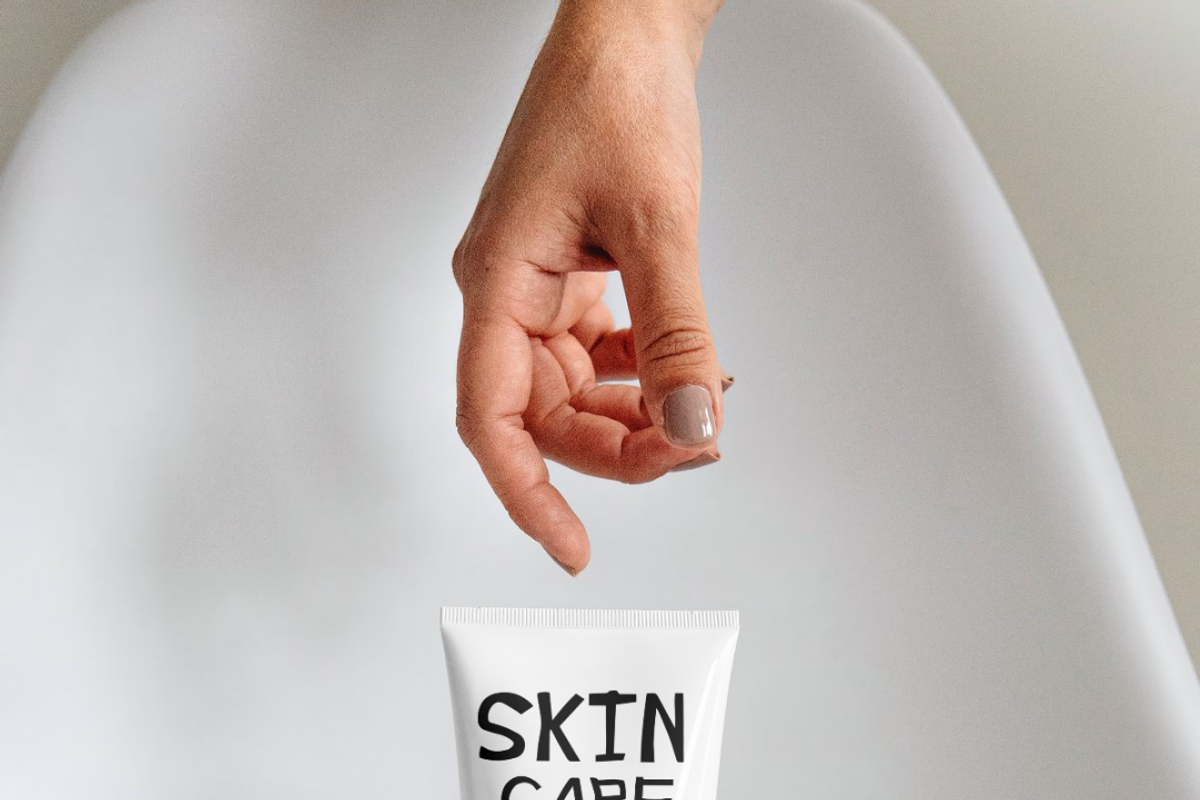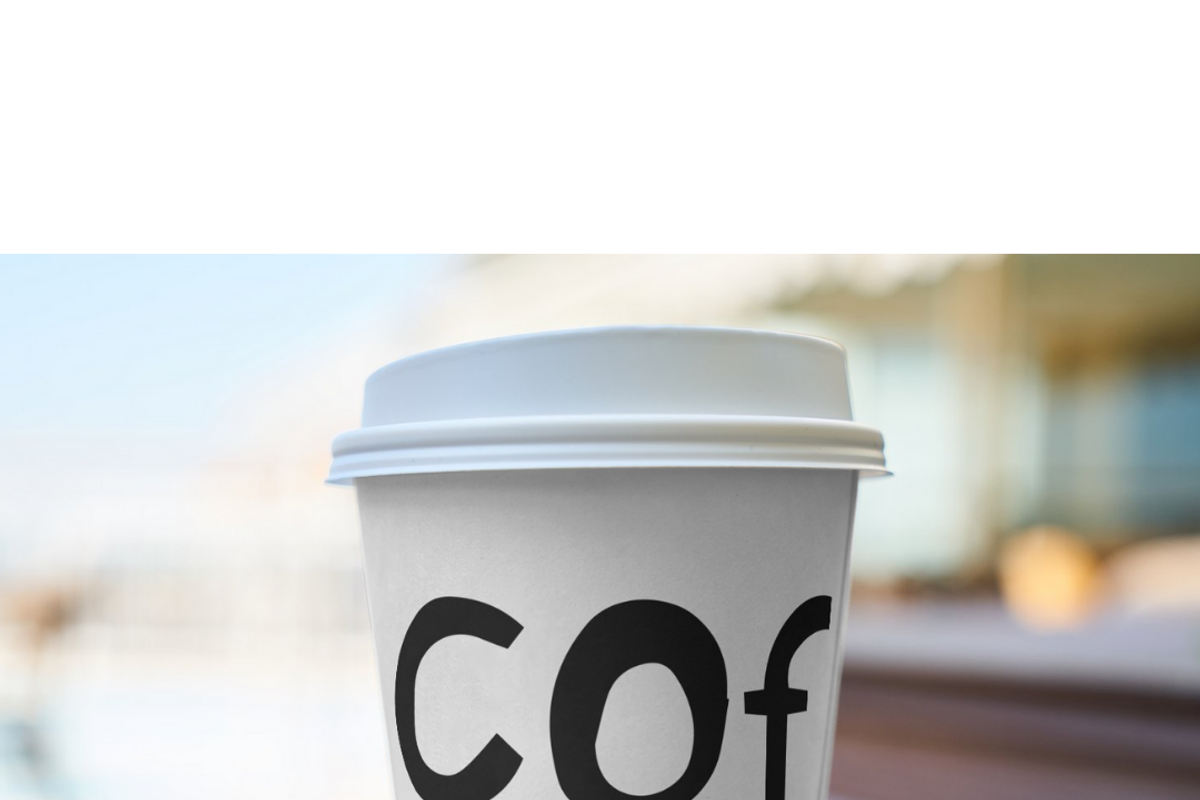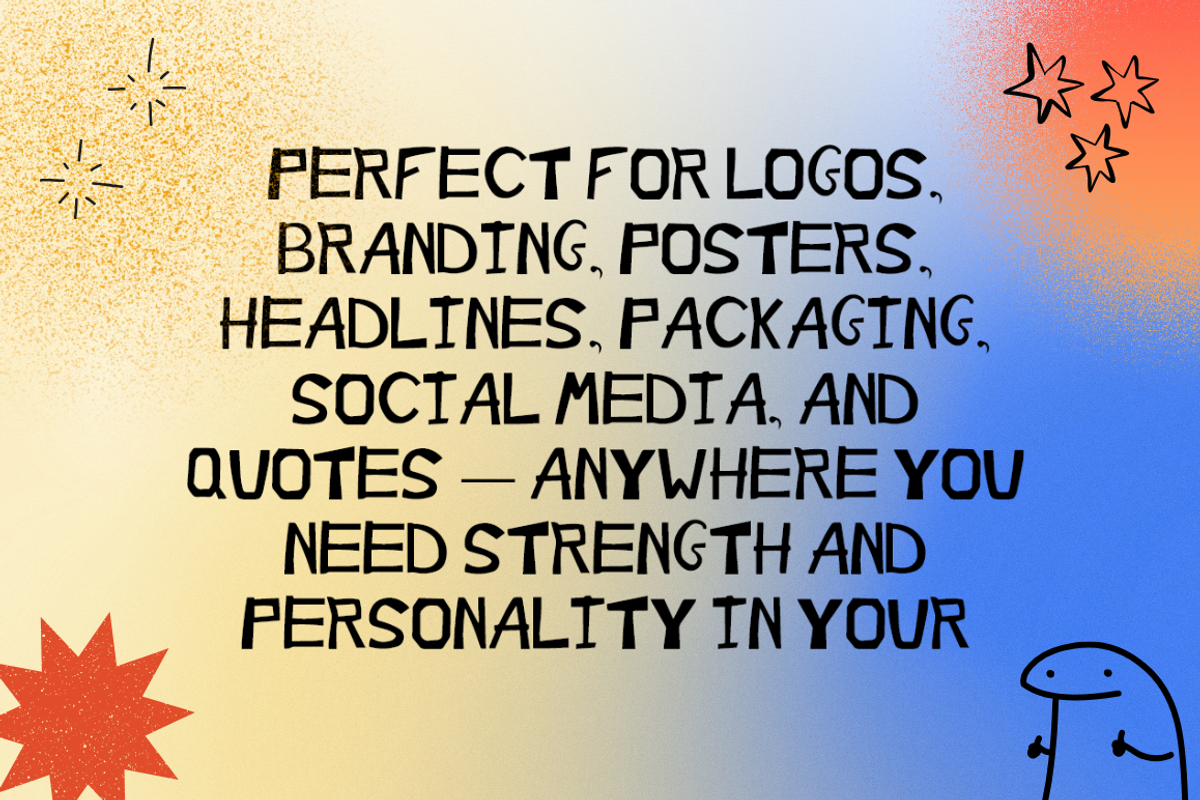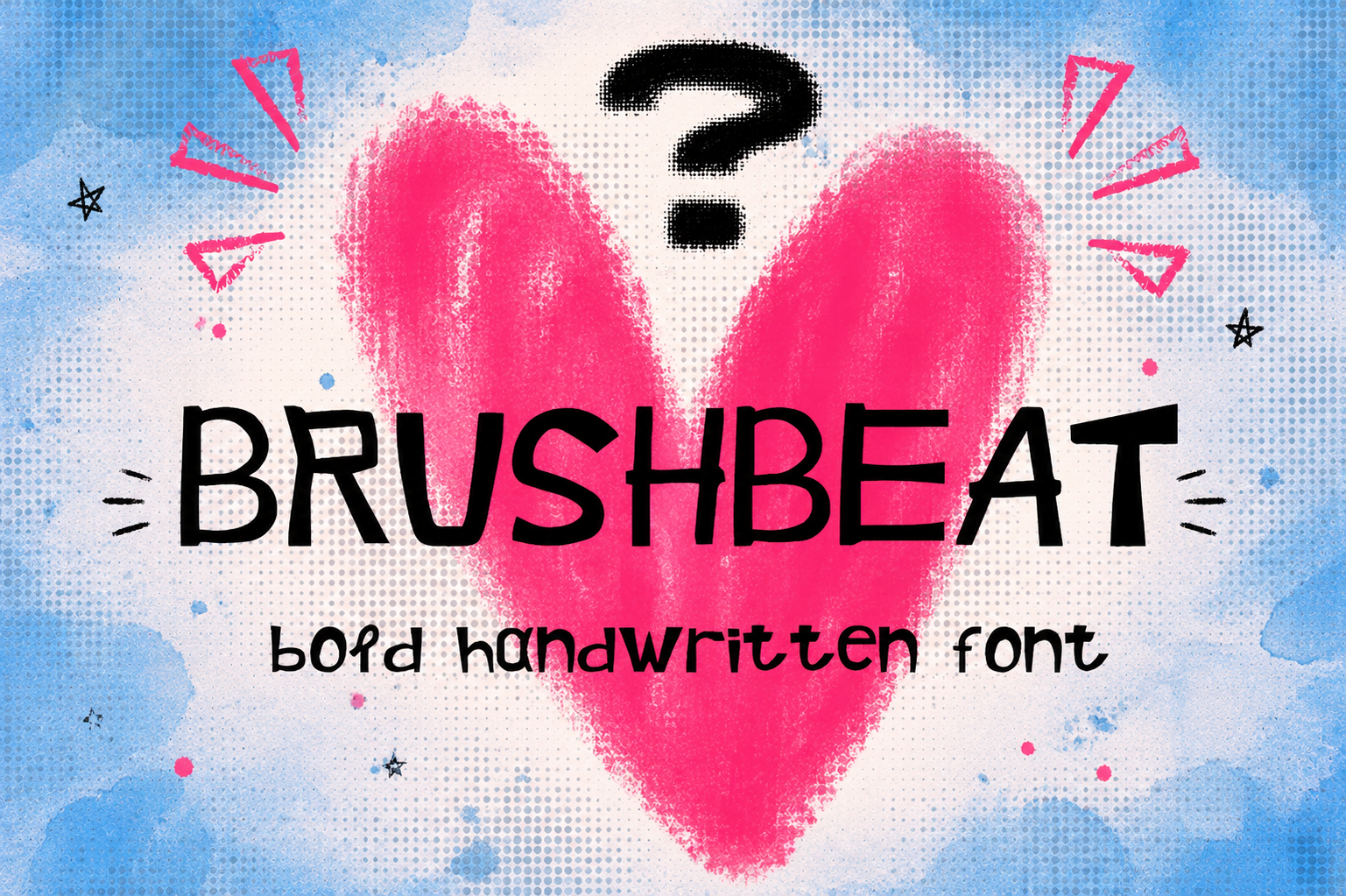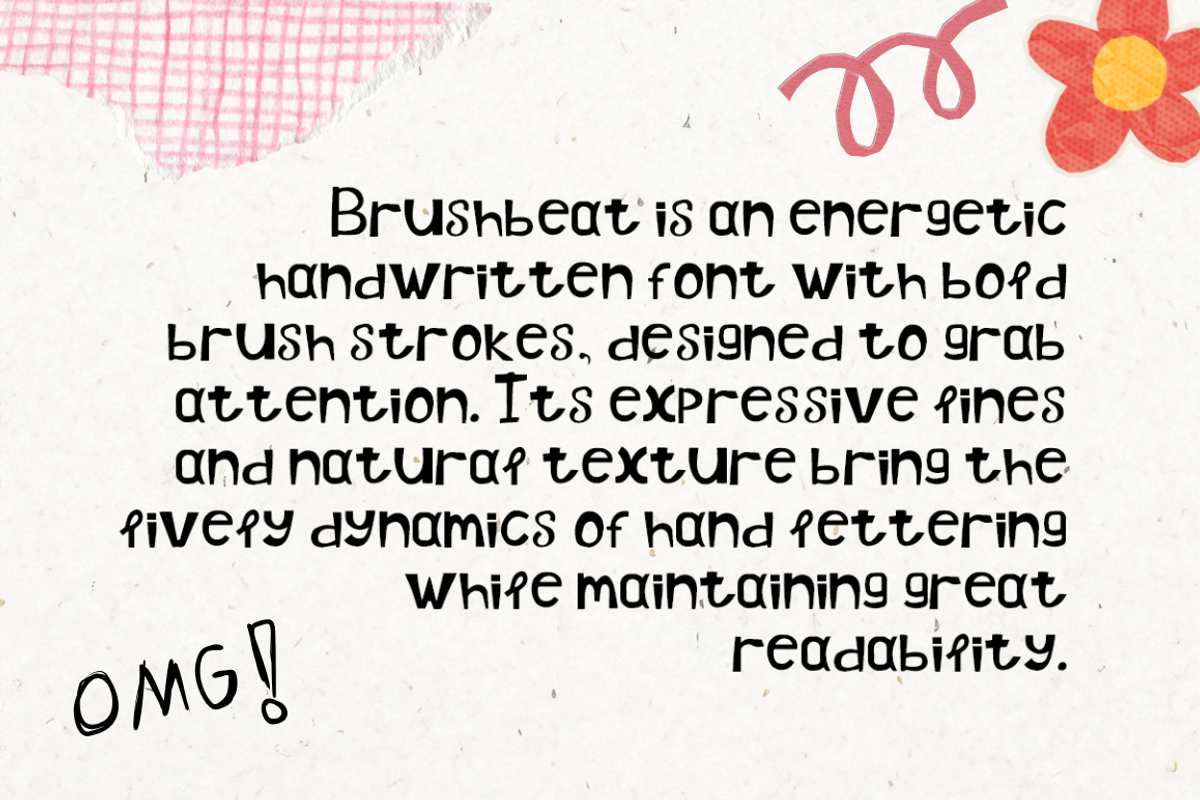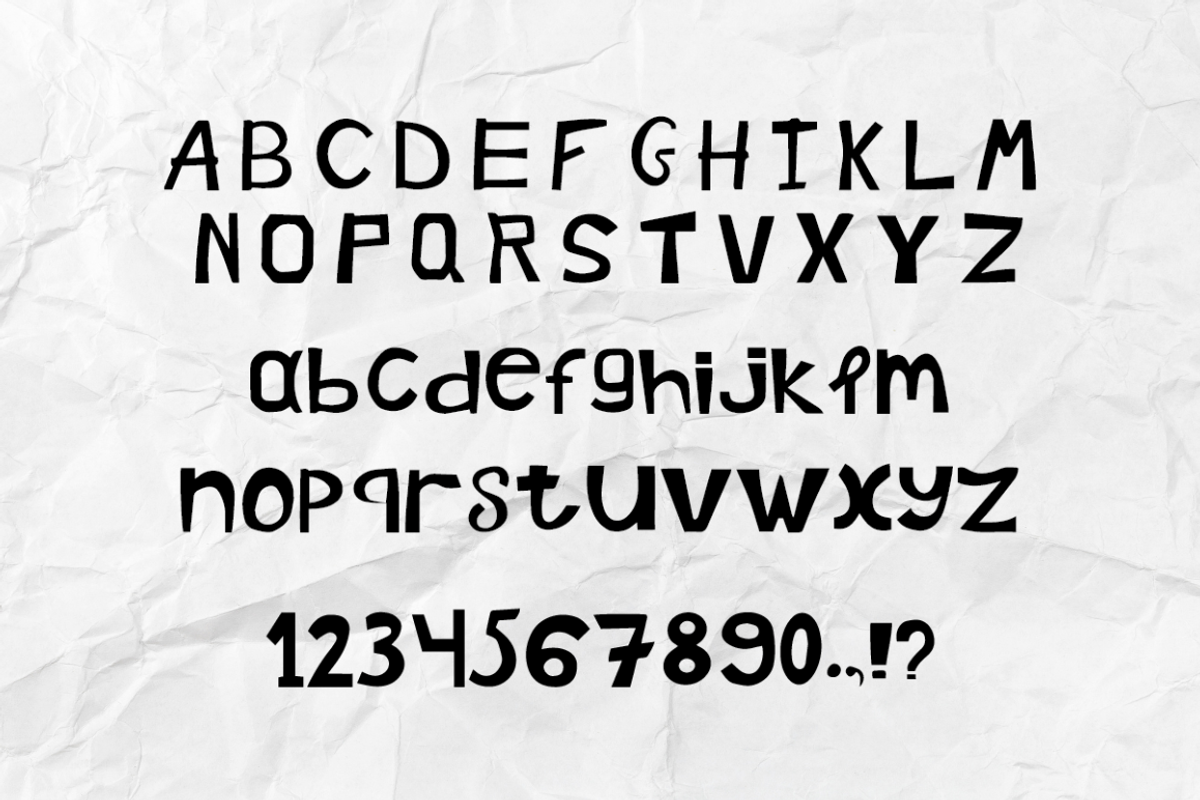
Brushbeat – Bold Handwritten Font
Brushbeat is an energetic handwritten font with bold brush strokes, designed to grab attention. Its expressive lines and natural texture bring the lively dynamics of hand lettering while maintaining great readability.
Perfect for logos, branding, posters, headlines, packaging, social media, and quotes — anywhere you need strength and personality in your typography.
✦ Features:
Full set of uppercase and lowercase letters
Numbers and punctuation
Multilingual support (Latin Extended)
Smooth, organic flow with authentic brush character
Add Brushbeat to your design and let every word make a bold, confident statement.